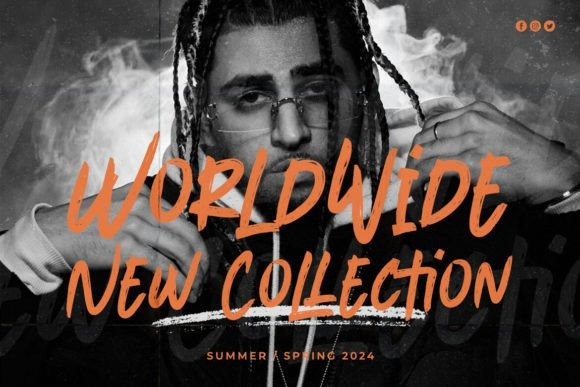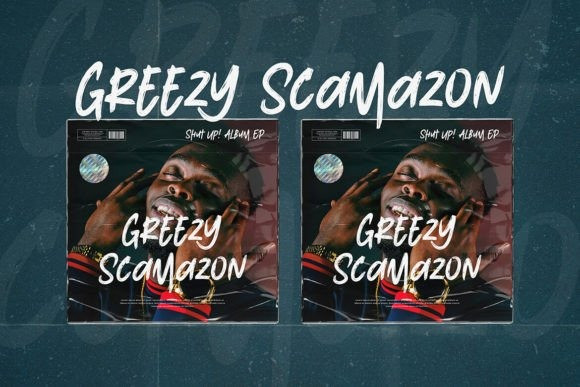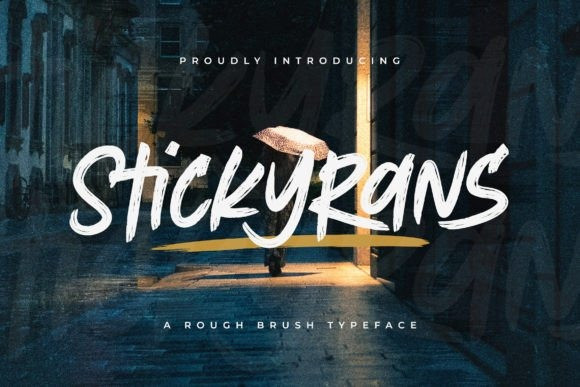
Stickyrans Font
Stickyrans Font – a rough brush typeface that adds an authentic edge to your designs. With its textured and expressive letterforms, “Stickyrans” captures the essence of raw creativity. Each character is meticulously crafted to showcase a perfect balance of boldness and artistic flair, making it ideal for handcrafted logos, gritty posters, urban branding, and more.